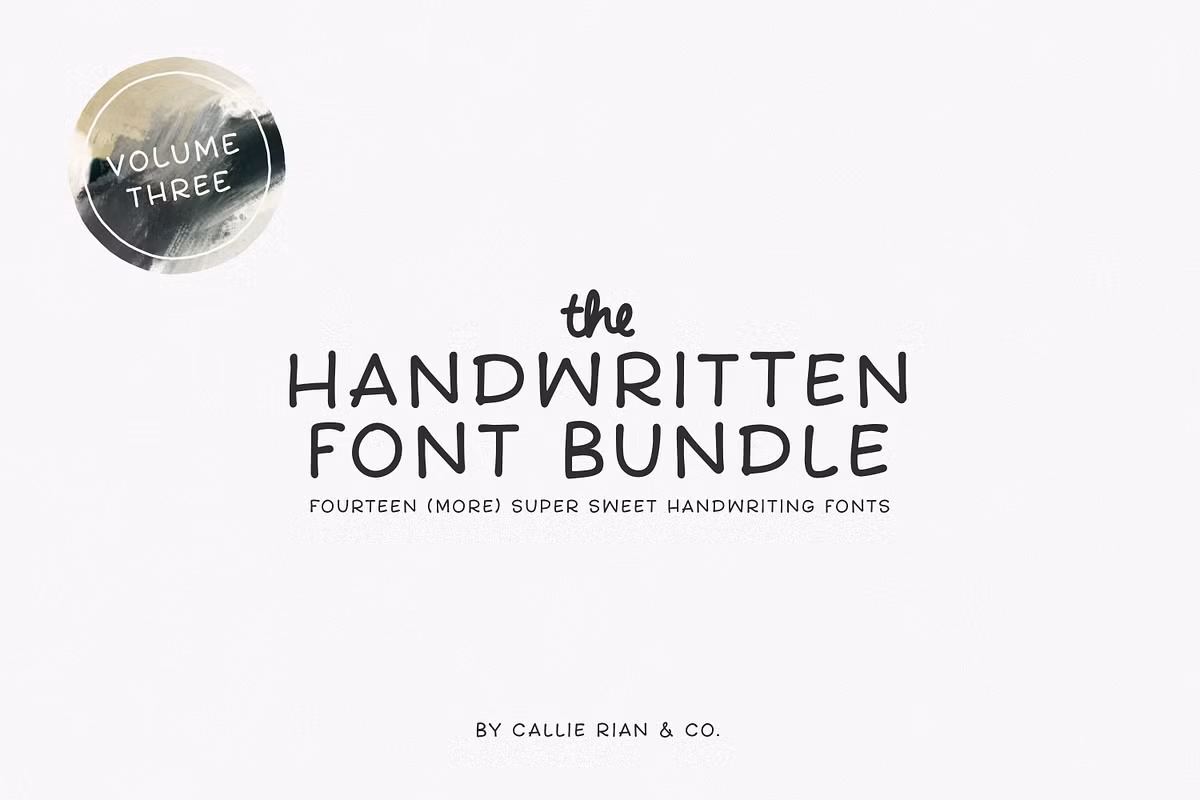
The Handwritten Font Bundle Vol. 3 Free Download
The Handwritten Font Bundle Vol. 3 Free Download is a charming collection of hand-drawn typefaces perfect for adding personality to any design. Featuring a variety of scripts and casual handwritten styles, this bundle is ideal for branding, quotes, invitations, packaging, and creative content. Please note that you must purchase this font for commercial use, but it is available as a free download for testing purposes. Elevate your typography with authentic, handcrafted vibes using The Handwritten Font Bundle Vol. 3 Free Download, and bring warmth and creativity to every project.